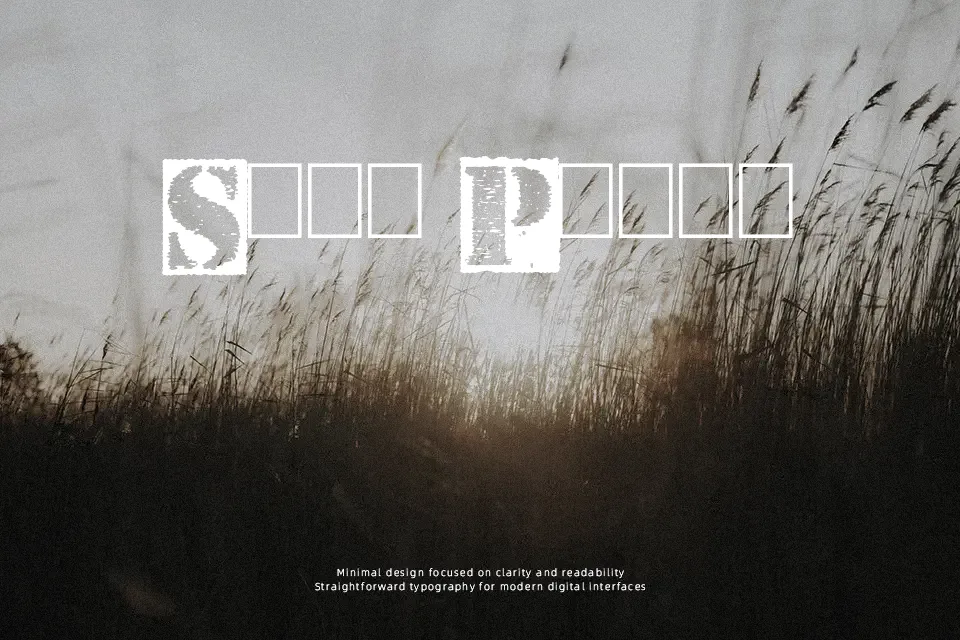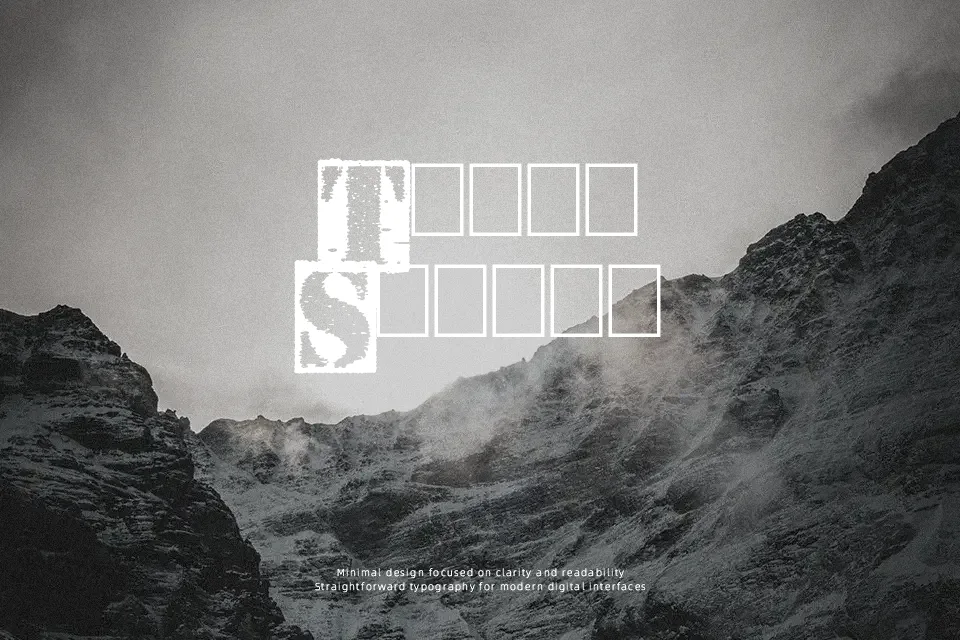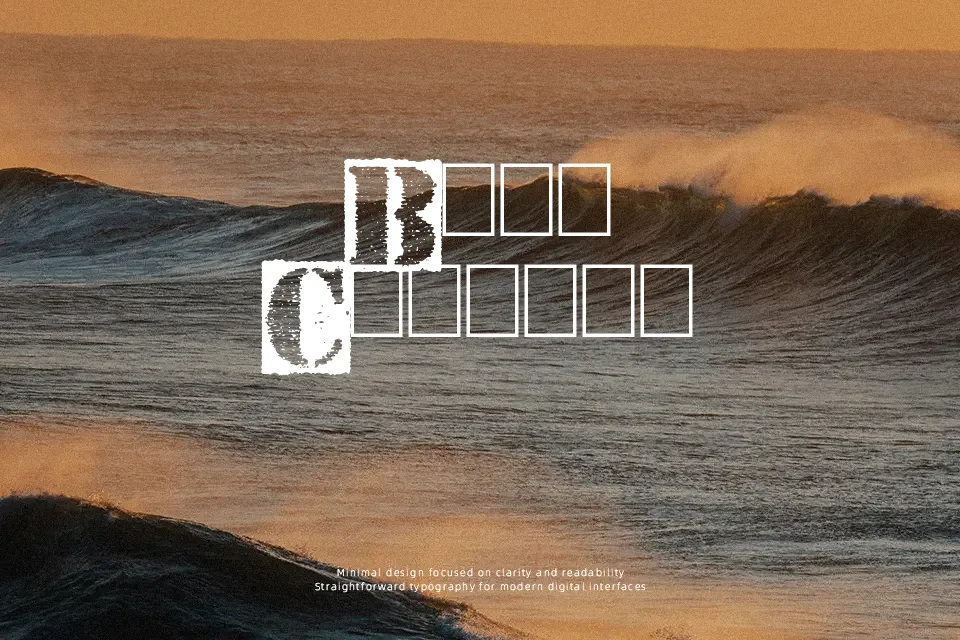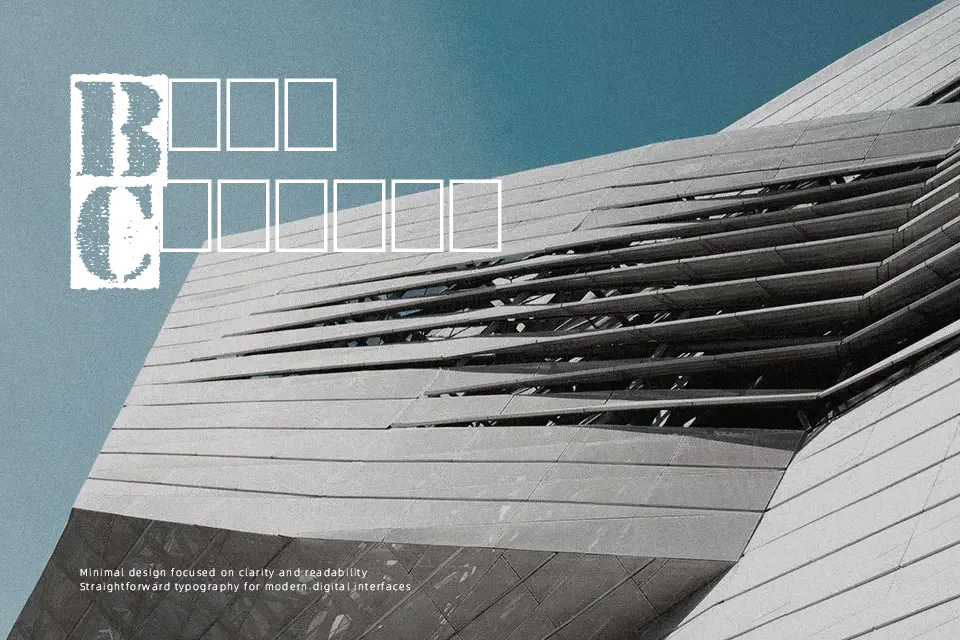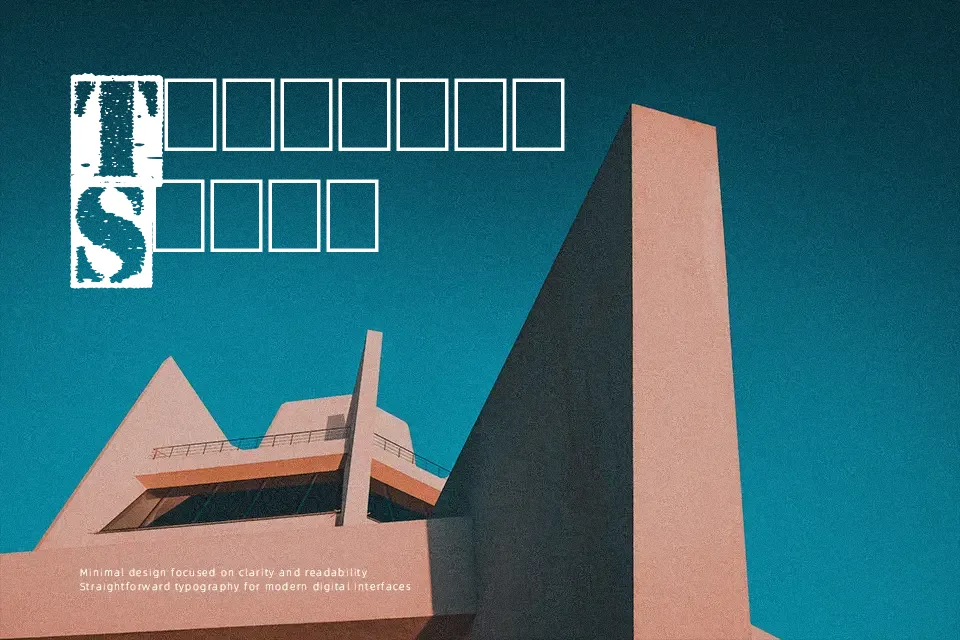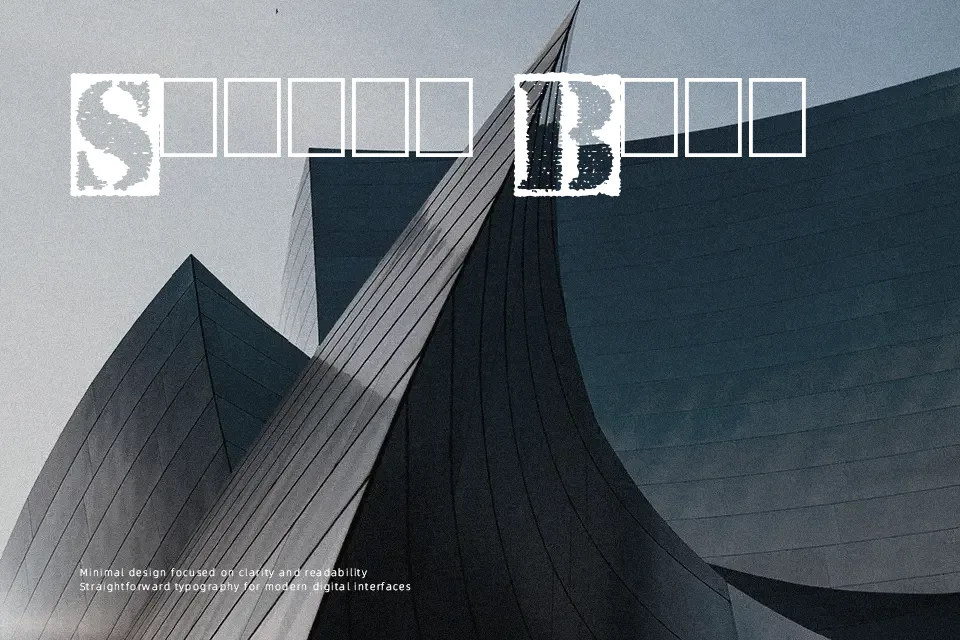
Carton Font
Carton Font presents an assertive stencil display structure defined by solid rectangular silhouettes containing cut-out glyphs. The letterforms feature thick, uniform strokes and tight character spacing that form a continuous modular ribbon when set in title case. Proportions remain squarish and compact, giving each character substantial presence while maintaining clear distinction in large scale applications. However, the heavy enclosed background elements drastically reduce legibility at smaller point sizes, making continuous body reading impractical. The dense negative space within each glyph requires generous layout margins to prevent visual crowding. For bold merchandise packaging and industrial signage, this typeface delivers an unmistakably rugged, utilitarian impression.
Best For: industrial packaging labels,shipping crate graphics,warehouse signage,apparel graphic prints
Not Ideal For: continuous paragraph reading,mobile user interfaces,fine print footnotes,dense corporate documents
Perfect for branding, headline, and packaging, with a bold and decorative style.